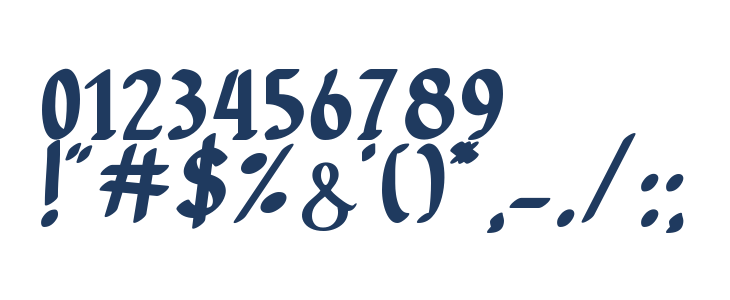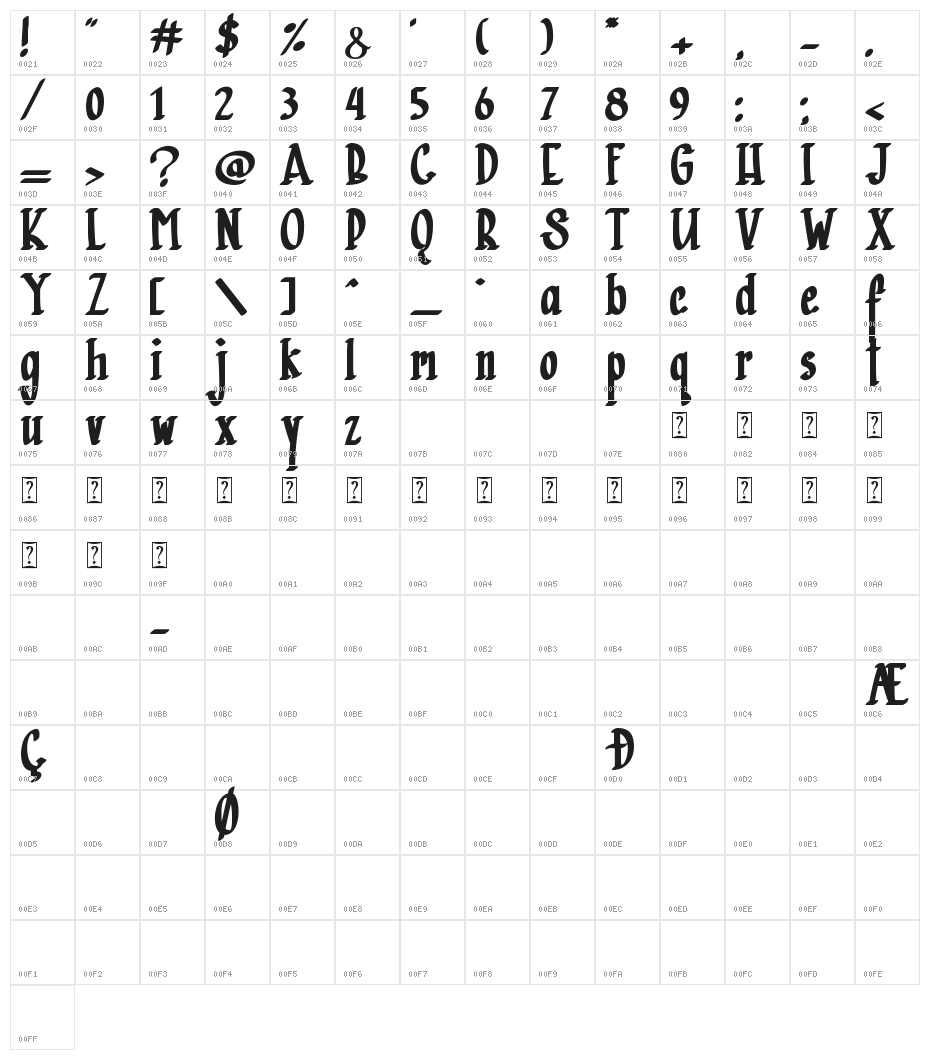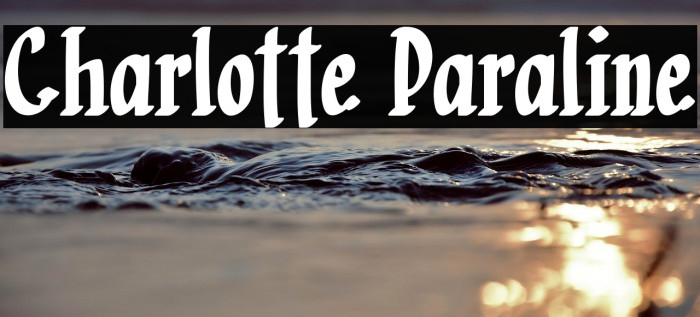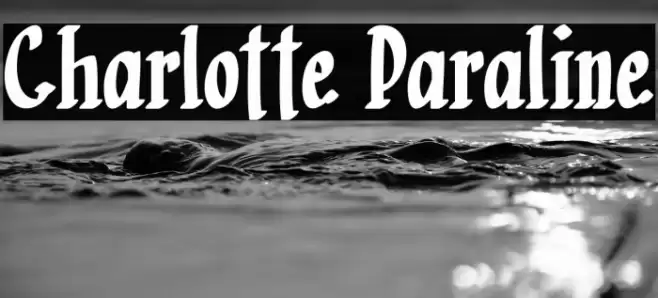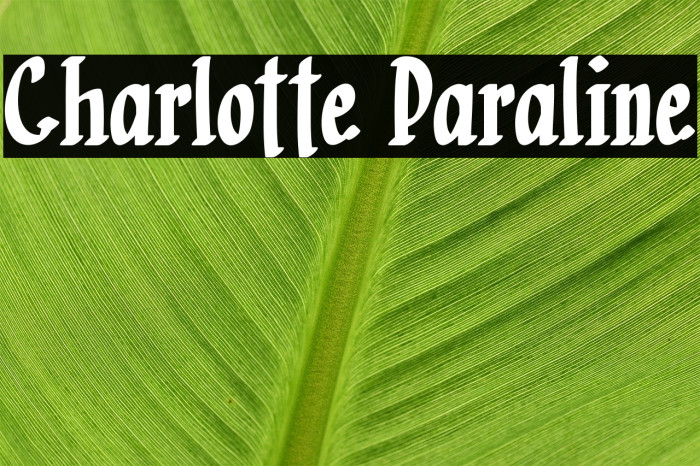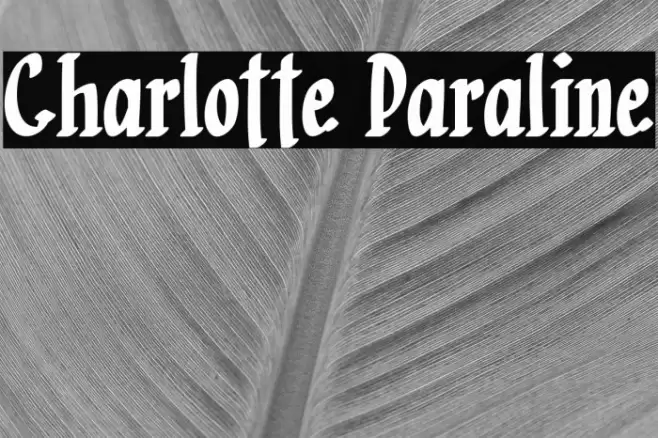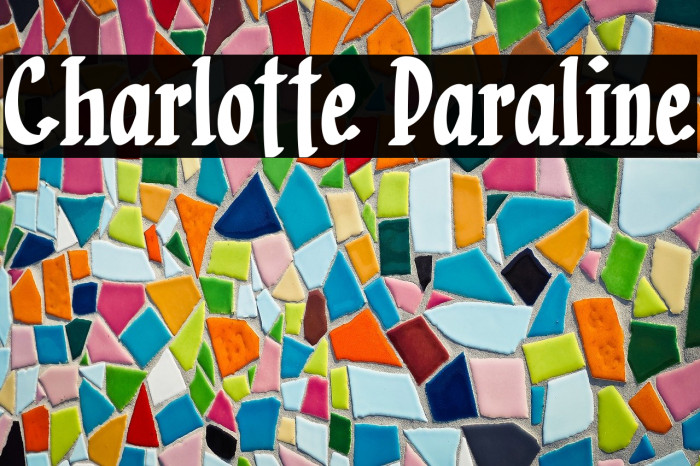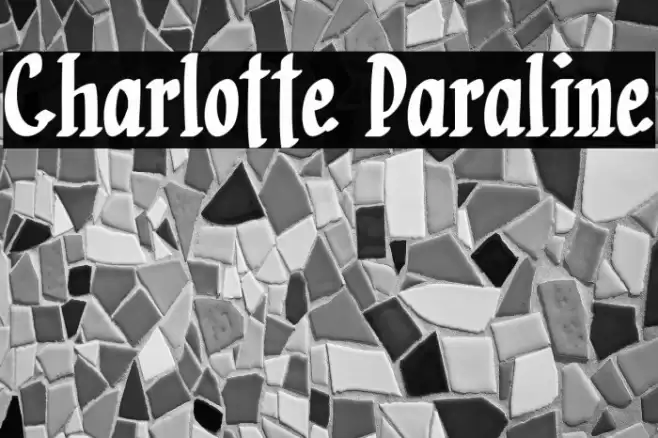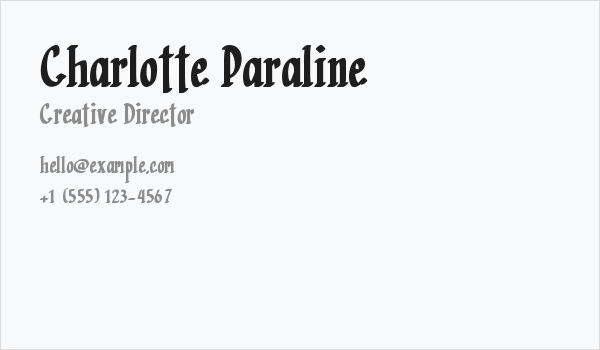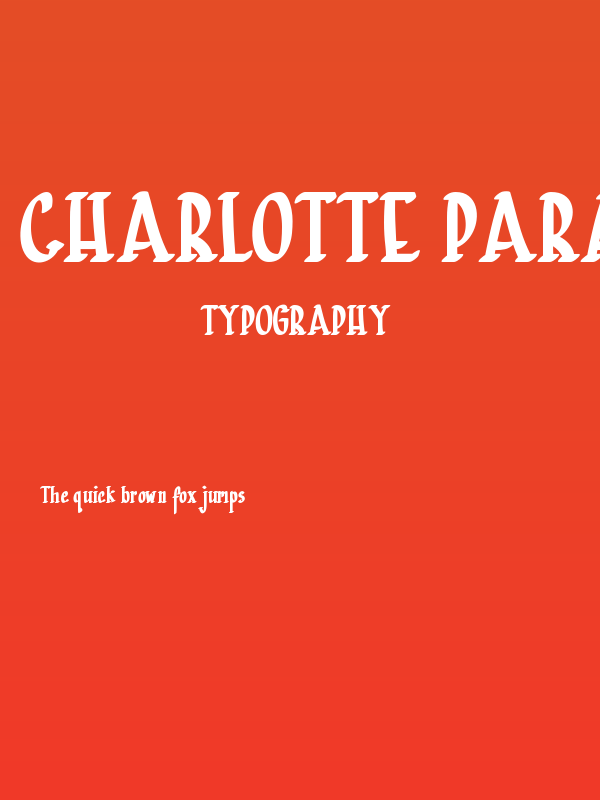
Charlotte Paraline Font
Charlotte Paraline Description
This font features a bold and playful design with a distinct hand-drawn quality. The uppercase letters are characterized by their thick, uneven strokes and slightly exaggerated serifs, giving them a whimsical and artistic appearance. The lowercase letters maintain this playful style, with some characters displaying unique flourishes and curves. The numerals are bold and consistent with the overall style, while the special characters add a touch of creativity with their varied shapes. This font's overall aesthetic is both eye-catching and informal, making it suitable for projects that require a fun and engaging look.
| Overall Style | Playful, Artistic |
| Proposed Projects | Ideal for children's books, creative posters, playful branding, and artistic invitations. |